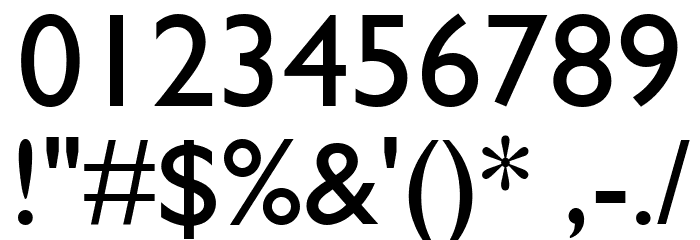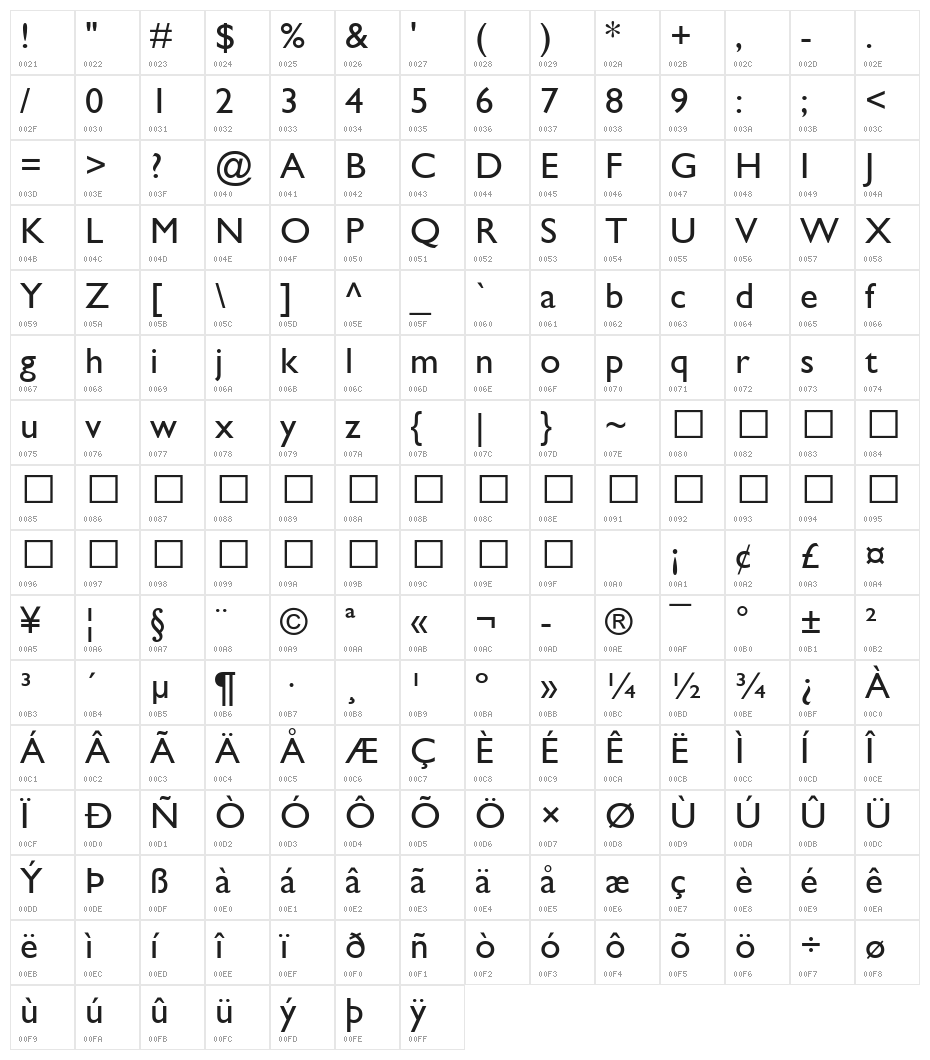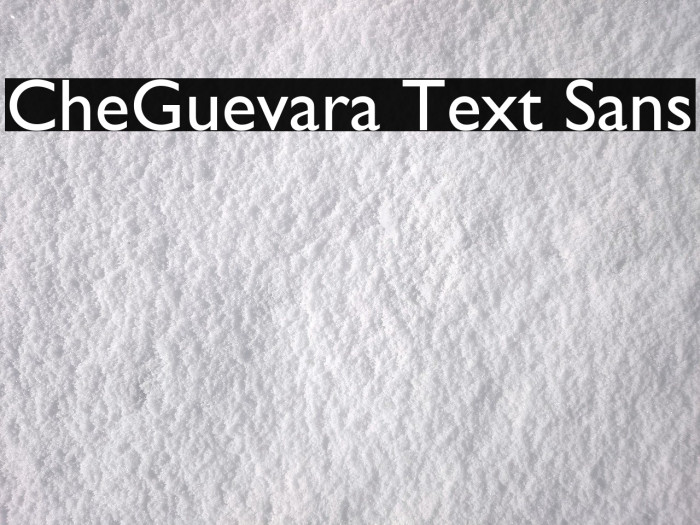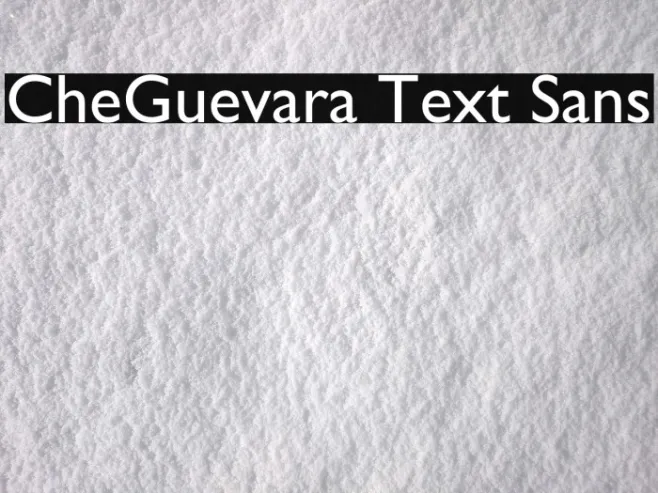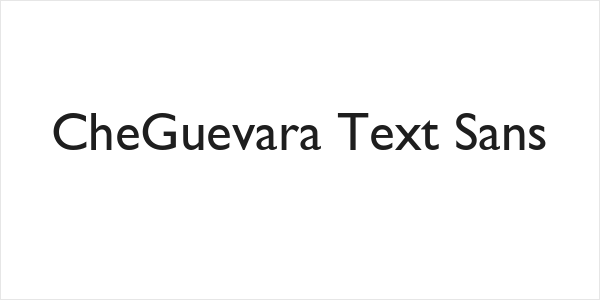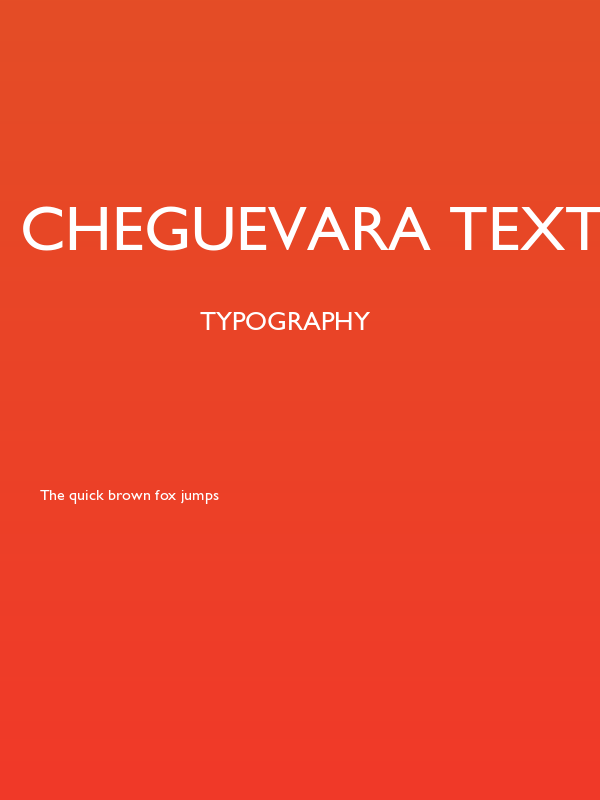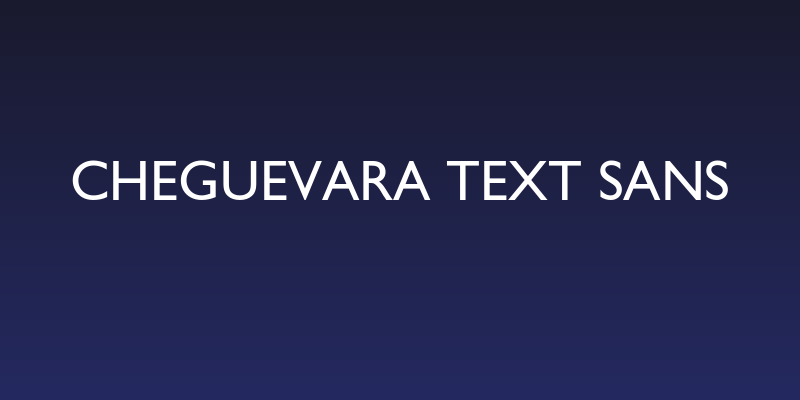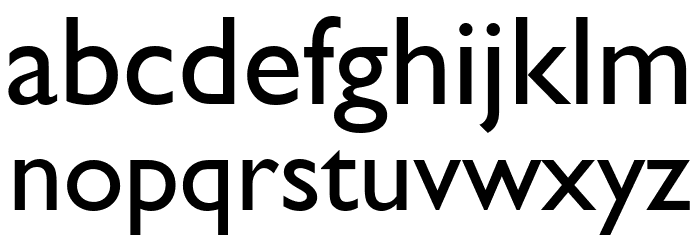
CheGuevara Text Sans Font
CheGuevara Text Sans Description
This font features a clean and modern sans-serif design, characterized by its simplicity and readability. The letters are evenly spaced with a consistent stroke width, providing a balanced and harmonious appearance. The uppercase letters are bold and assertive, while the lowercase letters maintain a friendly and approachable feel. The numerals are clear and distinct, making them easy to read. Special characters are well-integrated, maintaining the overall aesthetic of the font. This font is versatile and suitable for a wide range of applications, from digital to print media.